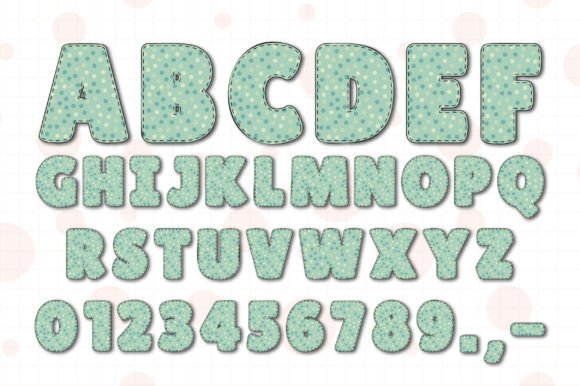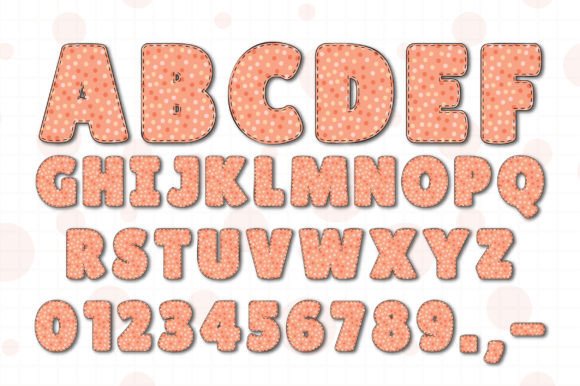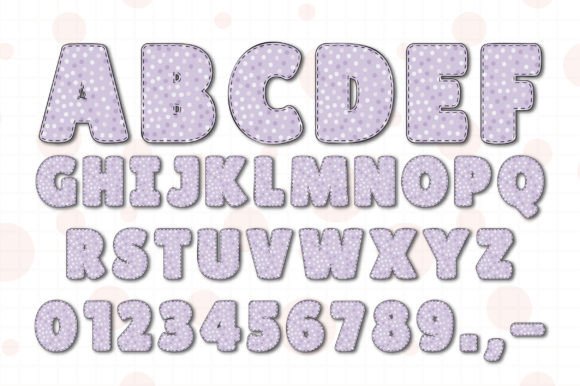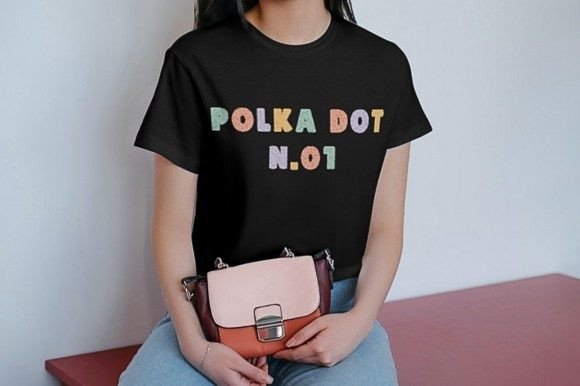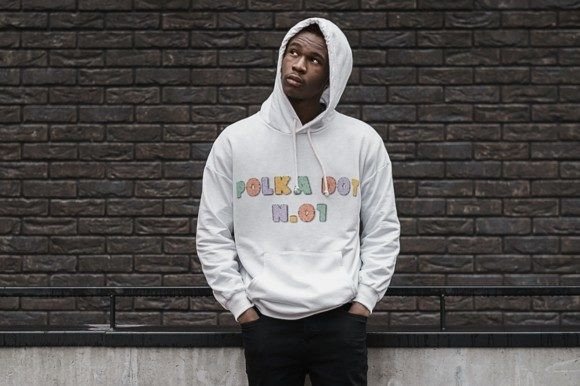
Introduction to Polka Dot Font
Introducing “Polka Dot” – an enchanting pastel dotted font that unveils a world of whimsy and charm.
Like a gentle breeze on a sunny day, this font delights the eye with its soft, delicate dots, arranged in a delightful array of pastel green, pastel orange, pastel purple, and pastel yellow Each letter blooms with its own unique burst of color, casting a spell of joy and playfulness upon your text.
Key Features of Polka Dot Font